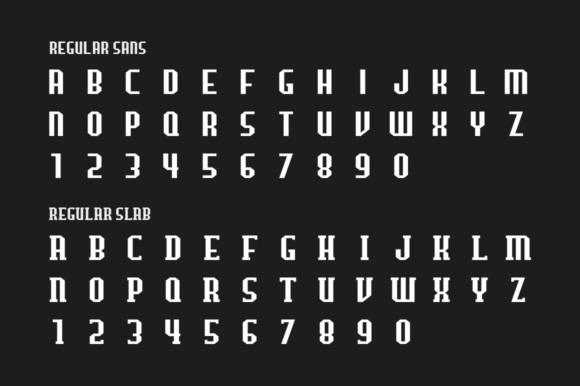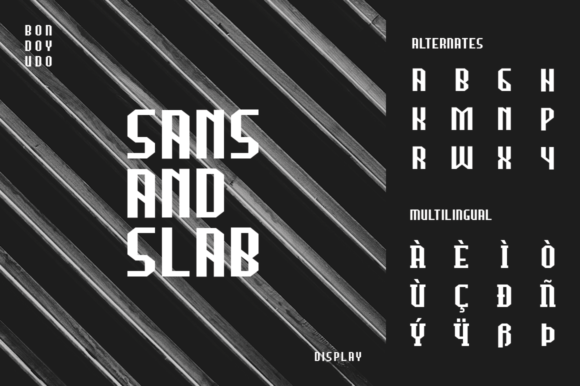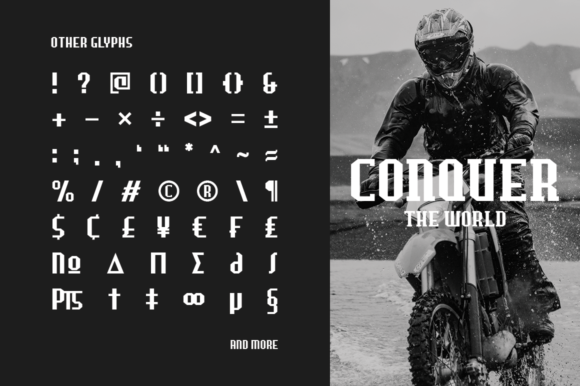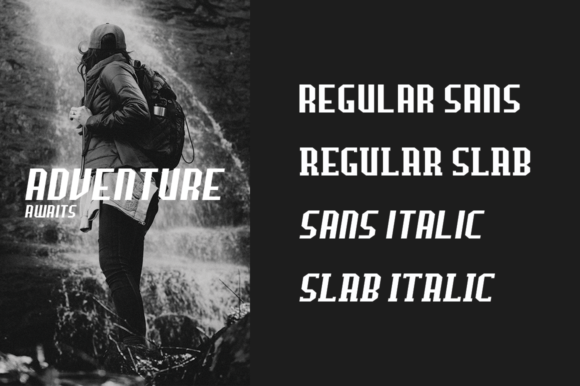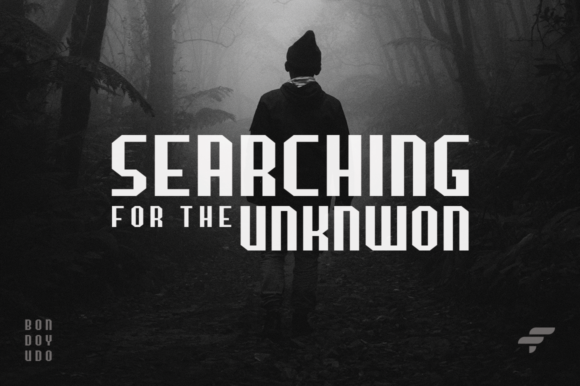
Bondoyudo Font: The Ultimate Choice for Bold and Striking Designs
The Bondoyudo font is a strong and bold typeface that has been making waves in the design world. Perfect for creating a striking design, this font is a must-have for designers and crafters looking to make a statement. In this article, we’ll dive into the world of Bondoyudo font, exploring its features, benefits, and uses.
The Origins of Bondoyudo Font
The Bondoyudo font is a unique and modern typeface that has been carefully crafted to meet the needs of designers and crafters. Its origins are rooted in the desire to create a font that is both strong and elegant, making it perfect for a wide range of design applications.
Key Features of Bondoyudo Font
- Strong and Bold: The Bondoyudo font is characterized by its strong and bold lines, making it perfect for creating striking designs that grab attention.
- Unique Style: The font has a unique style that sets it apart from other typefaces, making it perfect for designers looking to create something different.
- High-Quality: The Bondoyudo font is of high quality, ensuring that it looks great in any design application.
Benefits of Using Bondoyudo Font
- Grabs Attention: The strong and bold lines of the Bondoyudo font make it perfect for grabbing attention and creating a lasting impression.
- Versatile: The font is versatile and can be used in a wide range of design applications, from logos and branding to posters and flyers.
- Easy to Read: Despite its bold lines, the Bondoyudo font is easy to read, making it perfect for use in body text as well as headlines.
Uses of Bondoyudo Font
The Bondoyudo font is perfect for a wide range of design applications, including:
- Logos and Branding: The strong and bold lines of the Bondoyudo font make it perfect for creating logos and branding materials that make a statement.
- Posters and Flyers: The font is perfect for creating eye-catching posters and flyers that grab attention.
- Signage: The Bondoyudo font is also perfect for use in signage, making it easy to read and understand from a distance.
Tips for Using Bondoyudo Font
- Use it Sparingly: While the Bondoyudo font is strong and bold, it can be overwhelming if used too much. Use it sparingly to create a lasting impression.
- Pair it with Other Fonts: The Bondoyudo font pairs well with other fonts, making it perfect for use in combination with other typefaces.
- Experiment with Colors: The Bondoyudo font looks great in a wide range of colors, so don’t be afraid to experiment and find the perfect color for your design.
In conclusion, the Bondoyudo font is a strong and bold typeface that is perfect for creating striking designs. With its unique style, high-quality lines, and versatility, it’s a must-have for designers and crafters looking to make a statement. Whether you’re creating logos and branding materials, posters and flyers, or signage, the Bondoyudo font is the perfect choice.